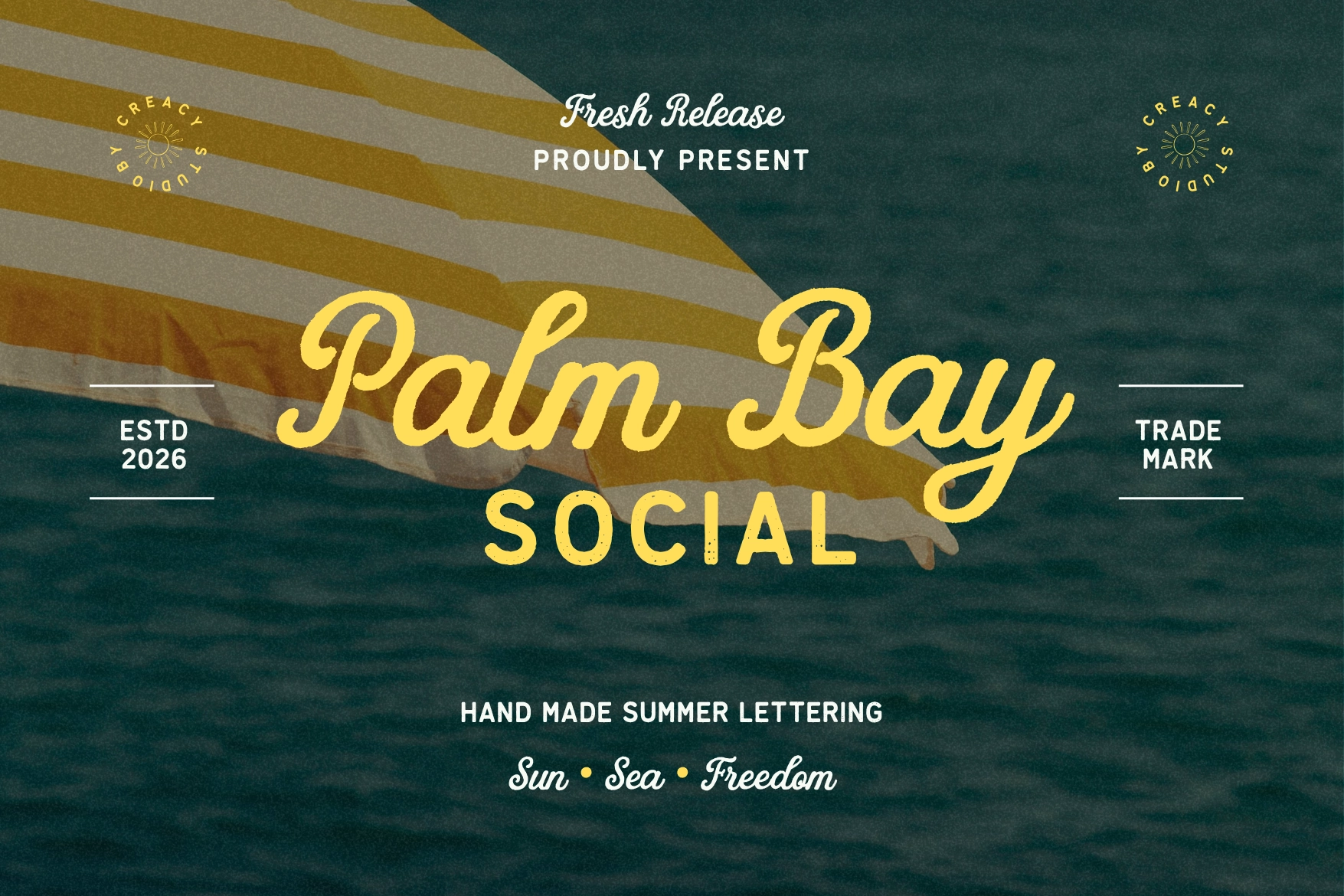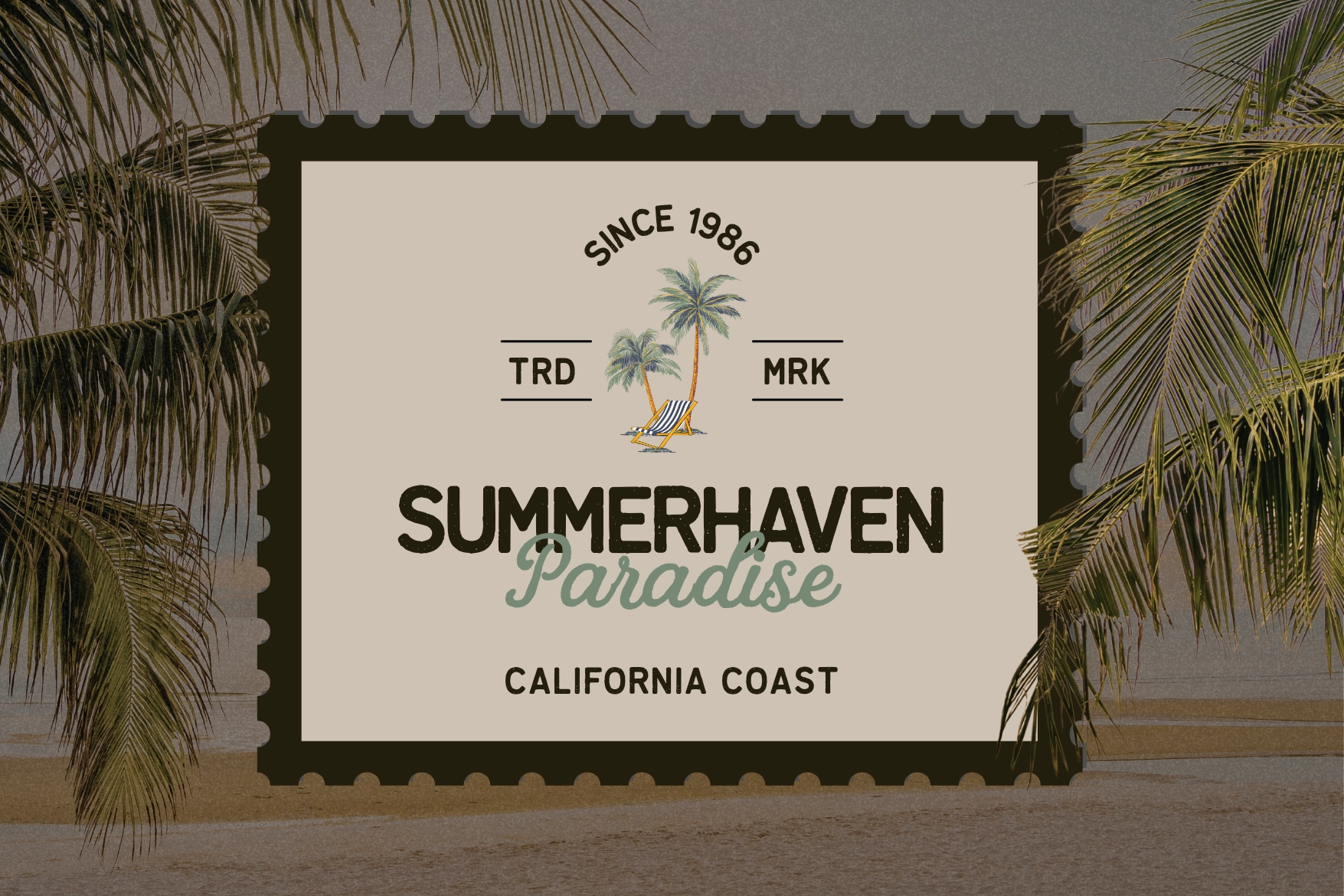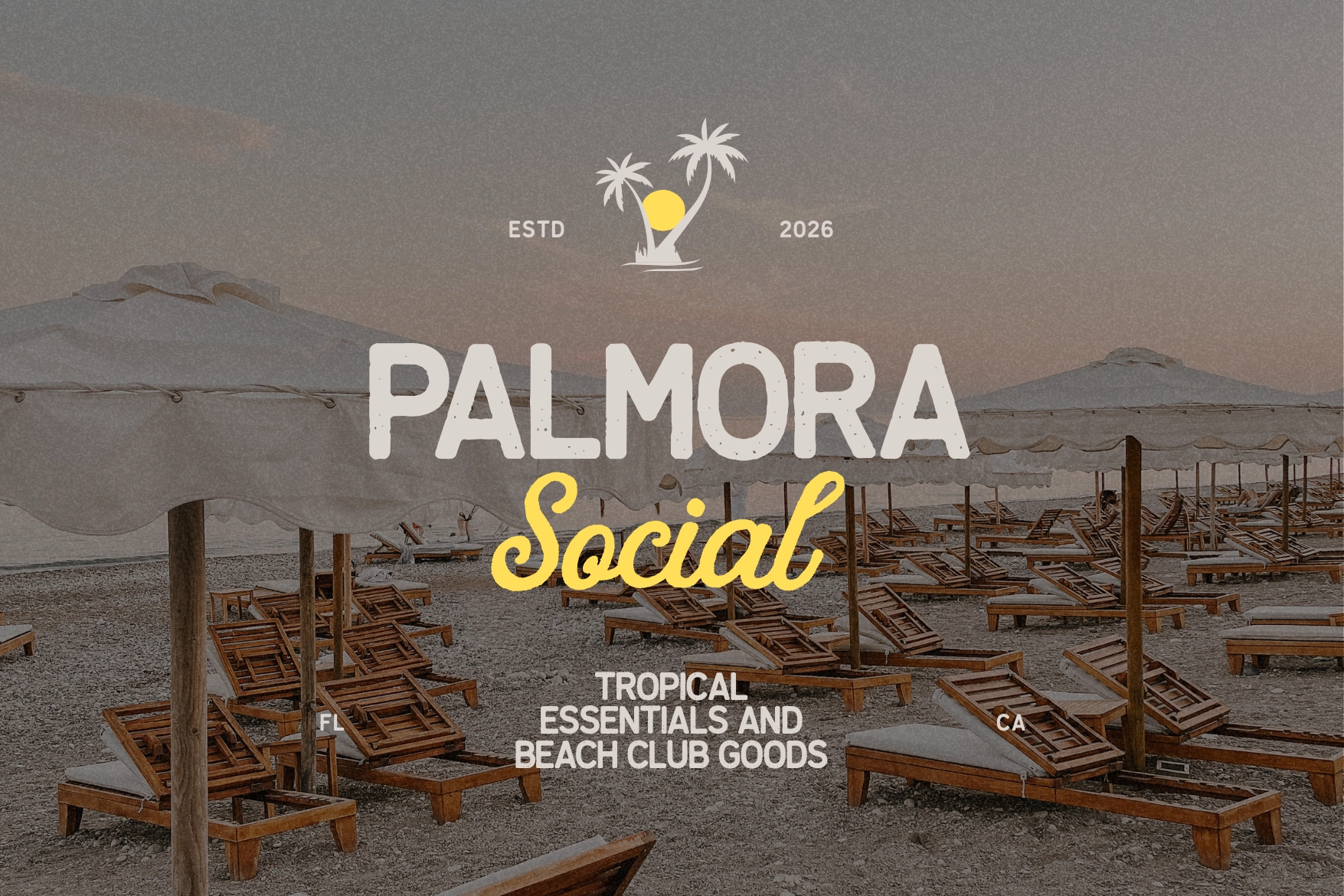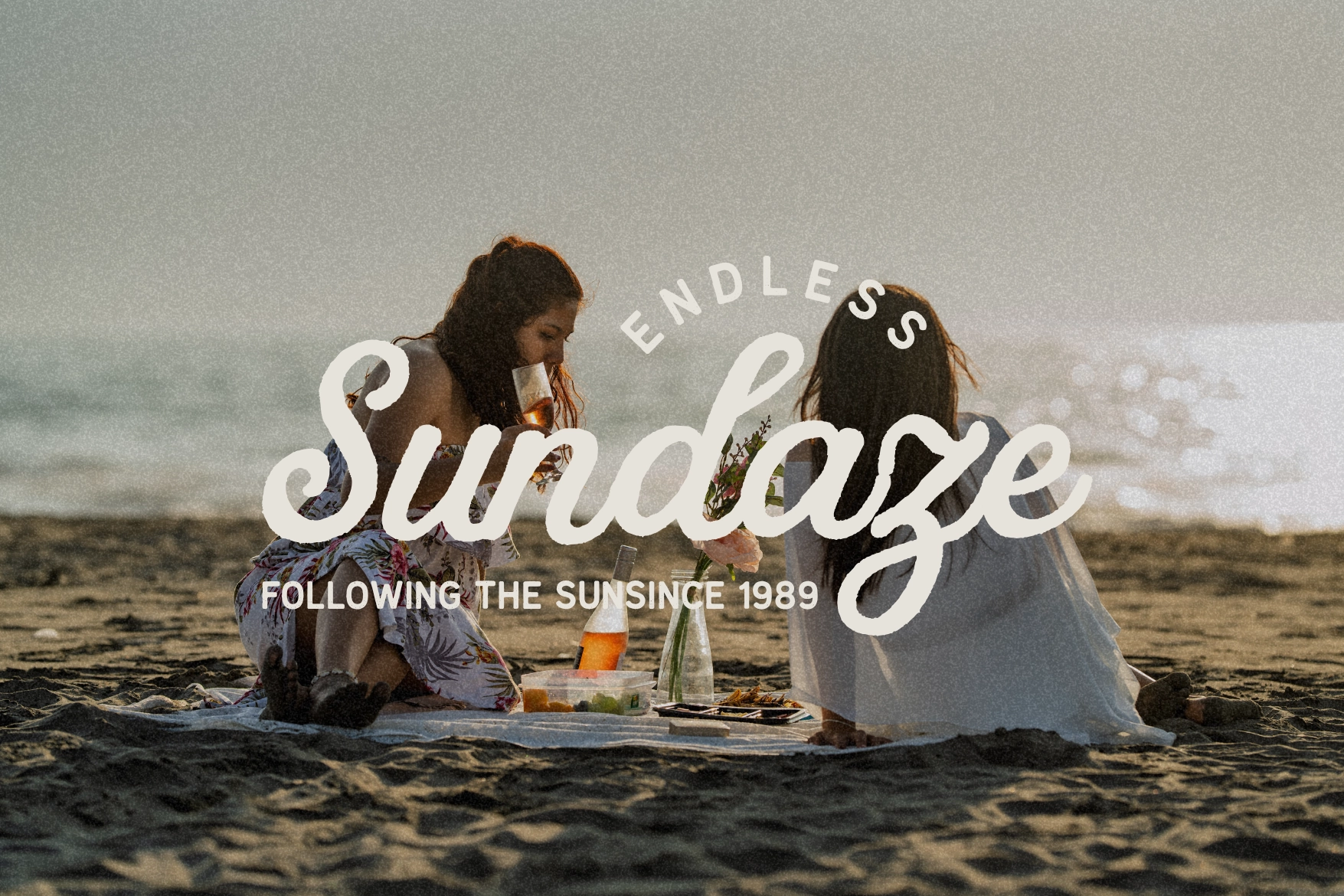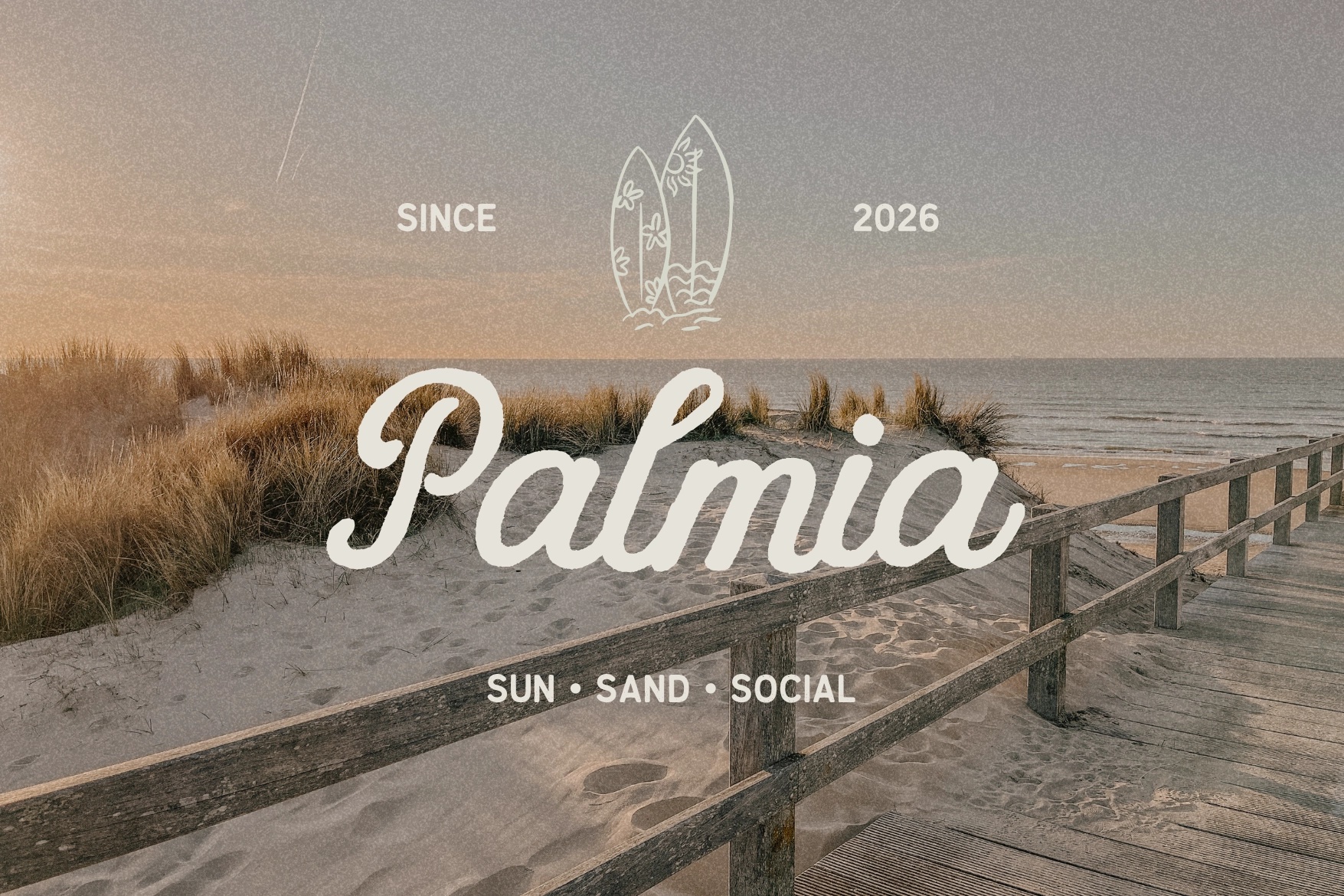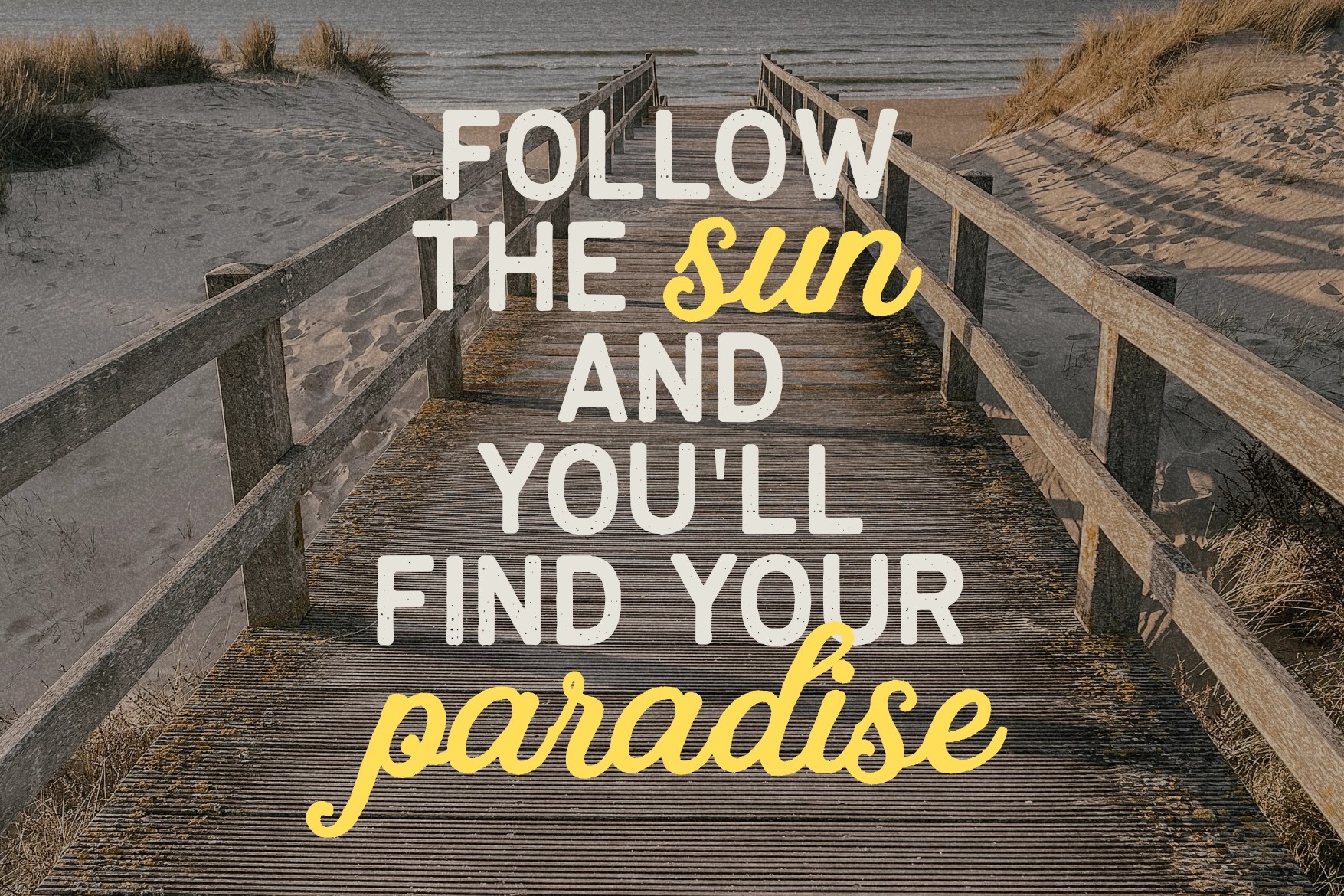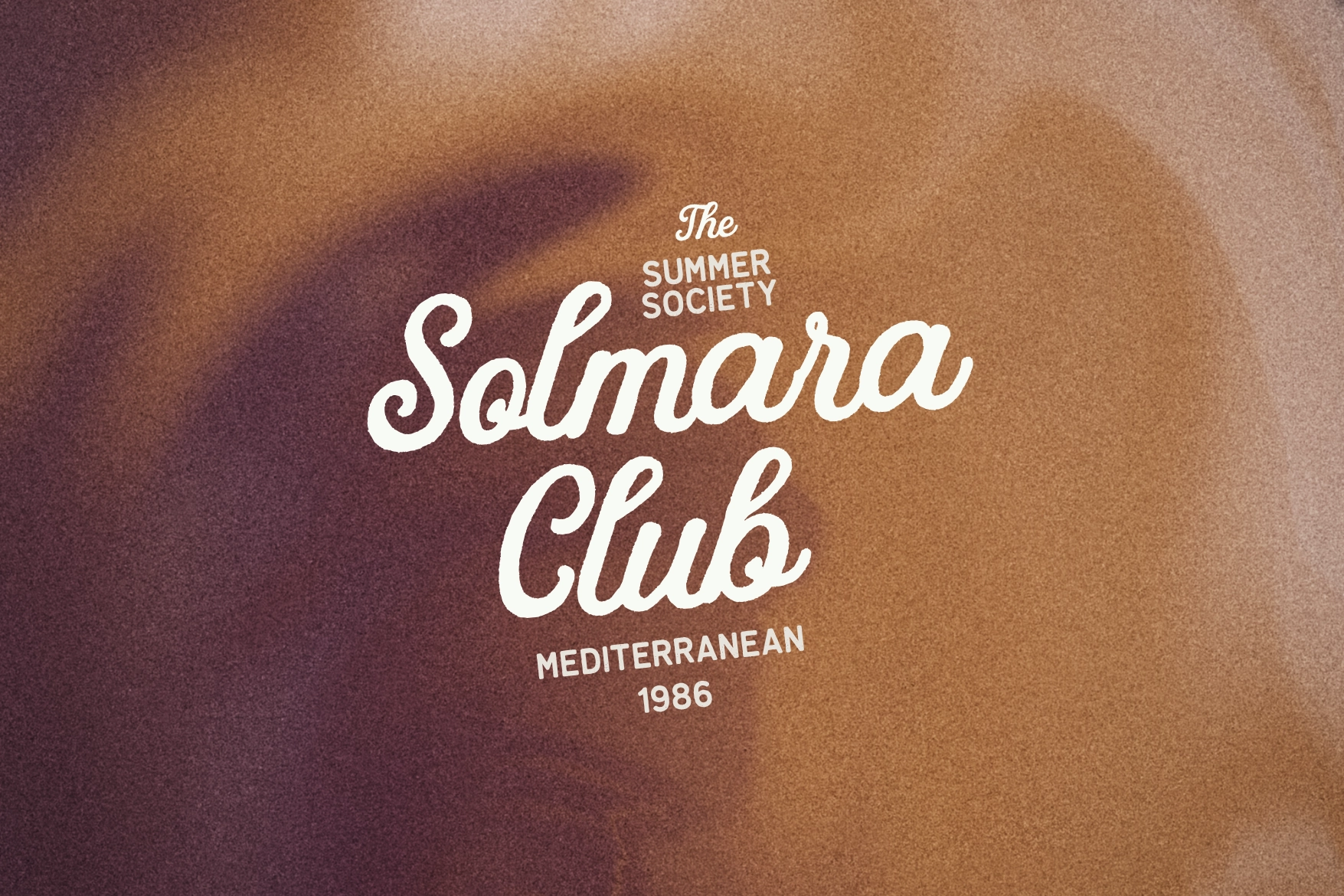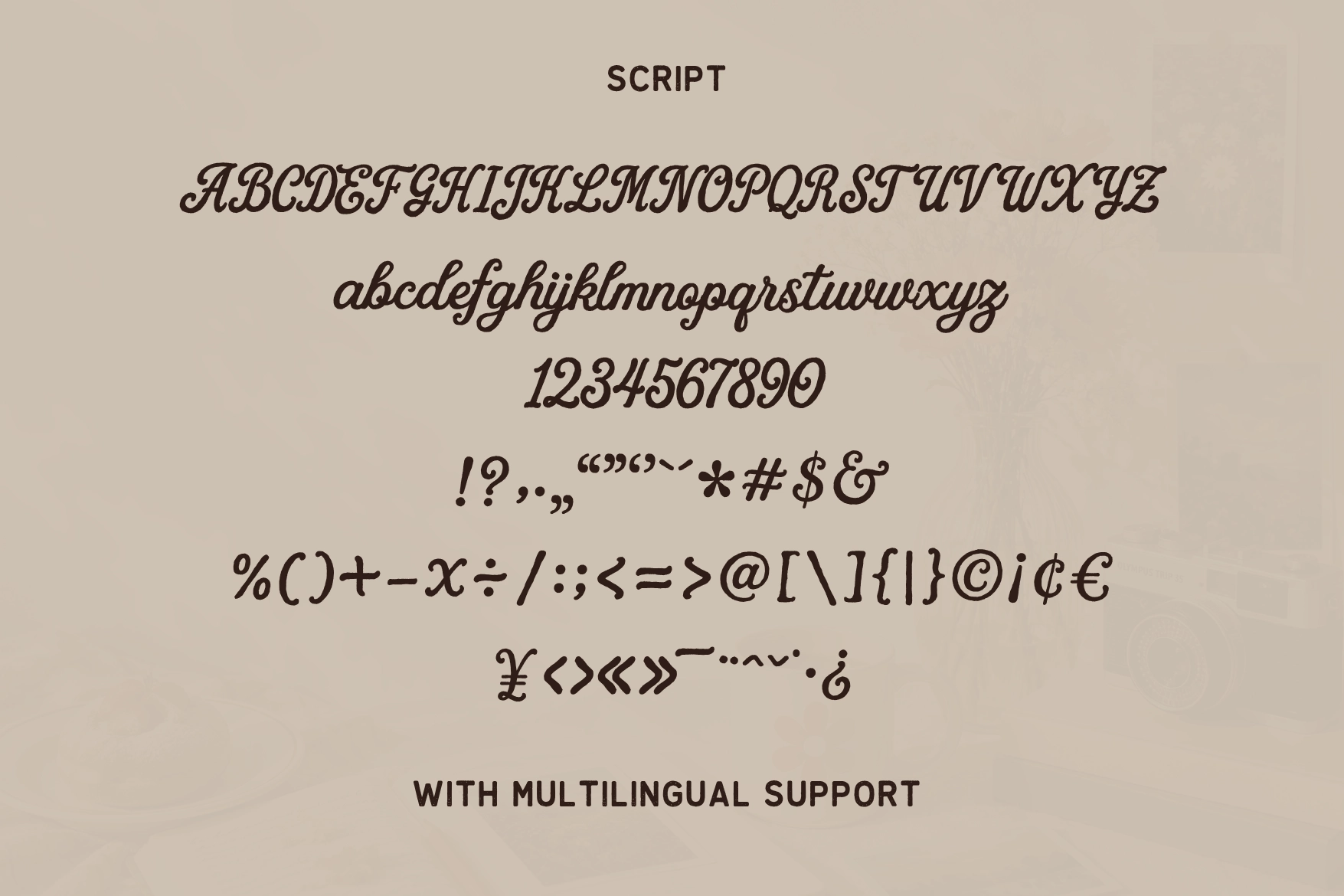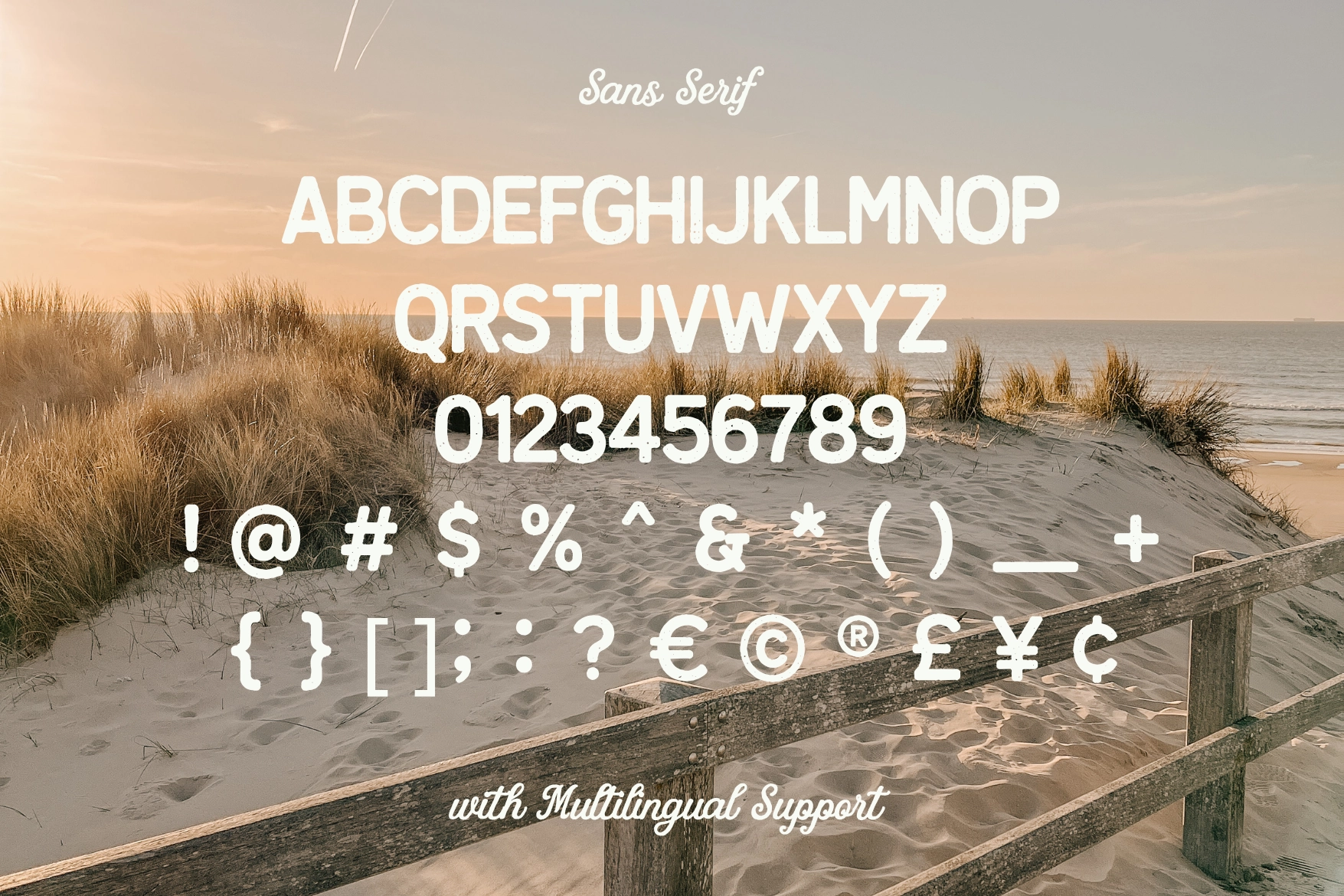
Palm Bay – Vintage Summer Font Duo
This retro font duo pairs a smooth connected script with a rounded distressed sans serif, giving layouts a sun-washed, coastal postcard character. The script carries a relaxed handwritten swing, while the sans adds sturdy beach-club structure with worn texture and easy headline weight.
Use Palm Bay for resort branding, beach club identities, coastal logos, summer packaging, travel posters, surf apparel, café menus, restaurant branding, social media graphics, editorial layouts, wedding invitations, Canva templates, merchandise, and more. The two styles work well together for stacked headlines, badge marks, product labels, and campaign graphics with a warm vacation mood — sunscreen sold separately.
- 2 styles: Script, Sans